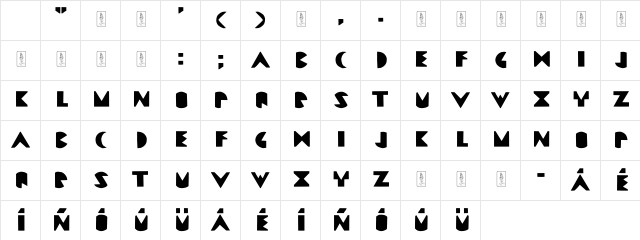
Gayacos Primaria Bastarda Regular Free Font
Gayacos Primaria Bastarda Regular
Design Context for Gayacos Primaria Bastarda
Gayacos Primaria Bastarda is a composed and adaptable typeface that performs quietly and consistently across a wide range of design contexts.